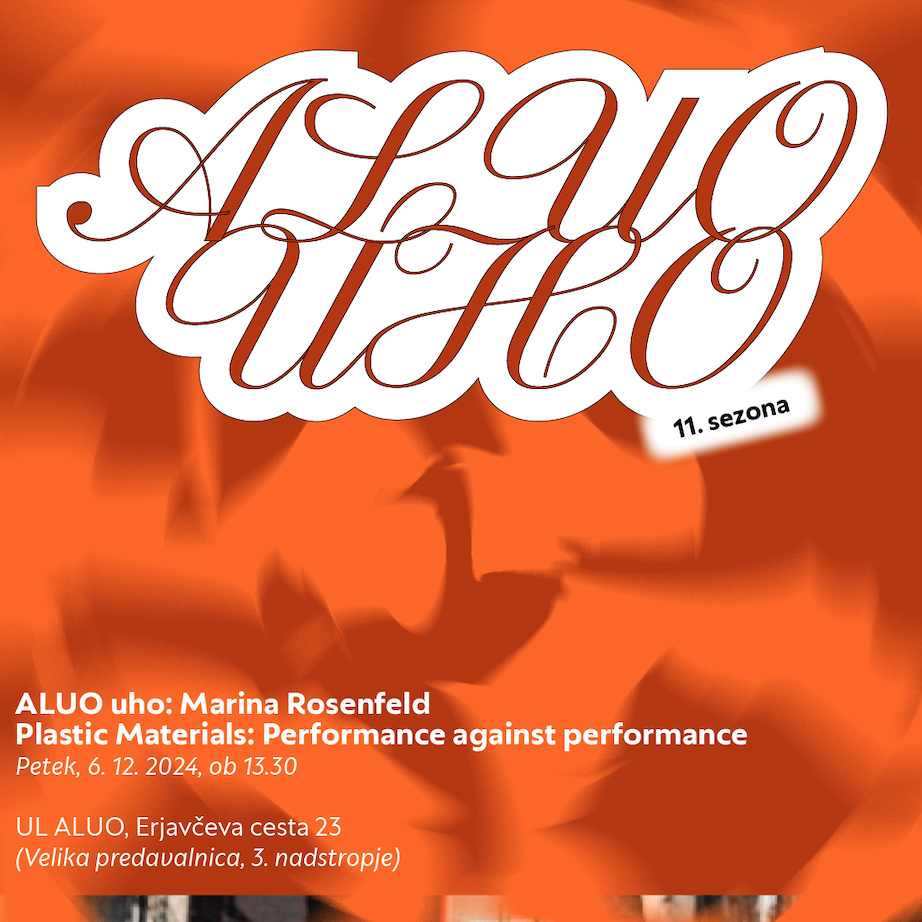
Univerza Sans was developed to mark the hundredth anniversery of University of Ljubljana. The style is influenced by the combination of Slovenian avantgarde with some recognizable forms that are known for Slovenian typography. Multifunctional use for identity system, formal communication, wayfinding, academic and scientific articles in order to share the institution’s spirit of knowledge, creativity, diversity and belonging. It speaks Central European languages, feels official but looks attractive and recognizable. Read more in Case Study.
Designer: Alja Herlah
In order to convey a historic protagonism of the previous century, we suggested that design evoke qualities such as dignity, belonging, heritage and creativity.
ESTABLISHED UNIVERSITY provided the sense of independency, belonging, solidarity and equal opportunities → these are the values we based our design on.